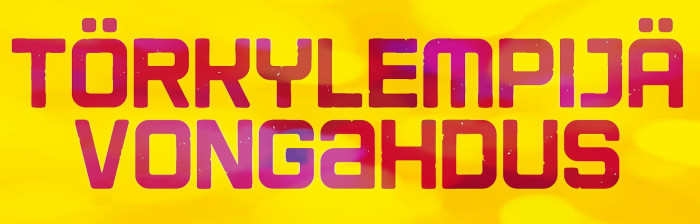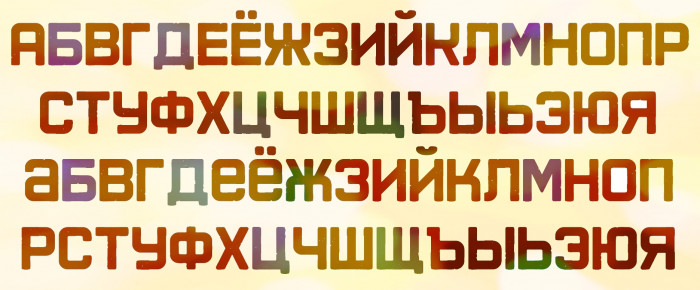
Unicase font with lowercase zone used for alternates. You can take these additional glyphs to enhance matching letter pairs or the overall look of the design. Old style flavor and Cyrillic inspiration, but eroded. BTW, you will also find a free "c" in the "¢" glyph. See at big size and enjoy with it, please.
@elmoyenique - Beautifully subtle erosion on this design. Congratulations! :^)
I can't think of a clever comment about erosion here, but the font looks super nice.
@Goatmeal: Thaks a lot, compañero! Yes, I wanted the eroding to look very subtle.
@BWM: Thank you! I know there are easier ways to add eroding to any text or font (using PhotoShop, Affinity Photo, or other similar programs), but I was interested in testing what this way would look like in FS.
Great look! Love the subtle rounded corners. Fun Finnish words in the first sample.
@Yautja: Thank you for your appreciative and kind comment, compa! Rounded corners were not a first choice, but I am very glad I chose them. About the Finnish words, I found them by searching for pangrams, and it seemed very suitable for showing how a font works with unusual languages in FS.
What a great font - as always. All distortions of letters look natural, as if it really is an old inscription, for example, from the Soviet era. And the abbreviation of descenders, and the shape of the letters, which is easy to do with a ruler, this form of y - all this really fits here. But I am again critical.
Such an M cannot be recognized in Russian correctly in any way, it is more likely to be read as a Т. I also noticed that you make the top cover of Б short - I don’t think this is correct in this font, where all letters tend to a rectangle.
And as an alternative, you could add descenders for Д Ц Щ (uc) and hide the remote Q inside (make it straight vertical, lc)
Well, the Bulgarian language writes the lowercase te like a latin lowercase m, even in roman glyphs
@Dmitriy Sychiov: You're right. It's a great fortune to have someone here who explains and analyzes our attempts with the Cyrillic alphabet so well to laymen like me. Thank you very much for your always selfless help once again. Б and M fixed. Descenders in the oven.
Descenders done.
Cool. But I thought you'd leave variations without descenders too.
@Dmitriy Sychiov: Finally, I'm with you. Dedicated to you these last changes, pal.
@elmoyenique: Your grunge technique is awesome. Thank you for sharing. 10/10
Hello, I like this font a lot. Tried to find one, but seems there is no "uneroded" version of this font around. Or, maybe I missed something?
@Peter (Petruuccio): Although not the same, here is a very similar (non-eroded) font Volle Buisjes
@Sed4tives: Thank you for tip, I like that one too, but this has for me optimal ratio between line thickness and rounded corners, plus the some glyphs form I do prefer (like closed 4 for example). Since its open, I meanwhile halfway prepared me my own slightly modified healed clone. I just cant decide yet, whether to repair the cyrilic glyphs too, or to remove them. Is there a command to erase whole set of glyphs?
@Peter: No sadly there is not a one click solution to erase all glyphs. Can't wait to see your "cured" version. Happy structing.
@Sed4tives: Thank you for your words. I finished the "healing". If you are still interested, its is here, I would like to see opinion of somebody with so much more font experiences than me.